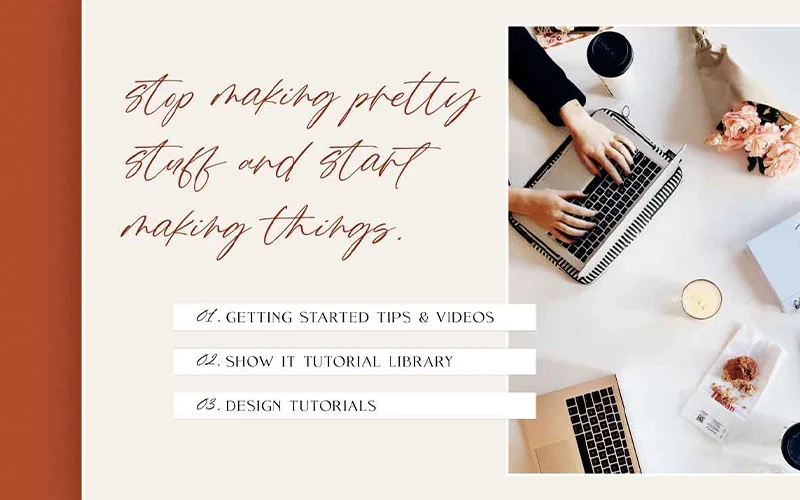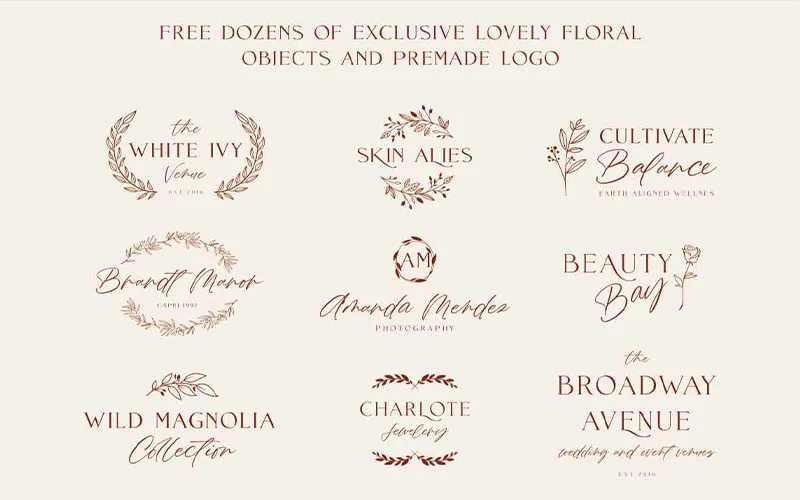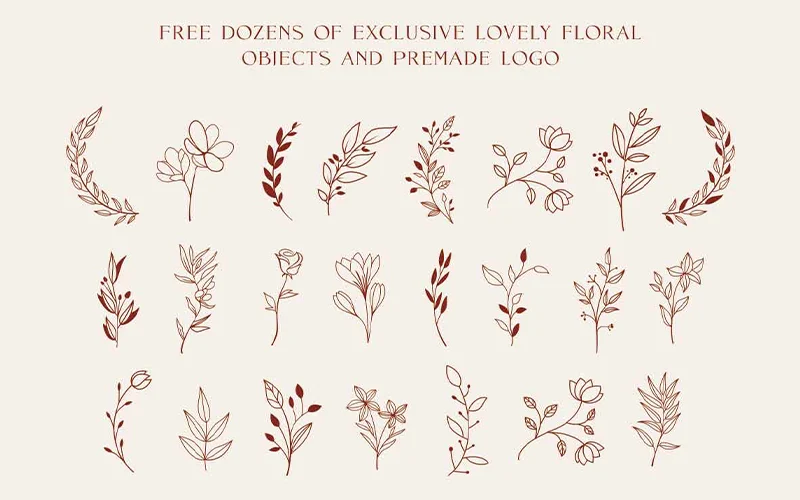
Mance Rose – Free Calligraphy Font
Mance Rose - Free Font For Modern Calligraphic Designs
Introducing Mance Rose, a beautiful free calligraphy font available in OTF, TTF, and WOFF formats, designed to add elegance and flair to your designs.
It includes numbers, uppercase and lowercase letters, multi-language support, and even bonus graphic resources to give your designs a charming look.
It is perfect for branding, invitations, digital projects, and more, as its modern calligraphy style can enhance any design.
A Preview Of The Free Calligraphy Font!
Mance Rose font preview image
A preview image of text written using the font - Mance Rose
A preview of free bonus elements included in the font Mance Rose
A preview image of free bonus elements included in the font Mance Rose
• Modern Calligraphy Font
• Numbers, Uppercase and Lowercase letters included
• Supports Multiple Languages – English, French, Italian, Portuguese, Spanish
• PUA Encoded Support
• Bonus Graphic Resources included